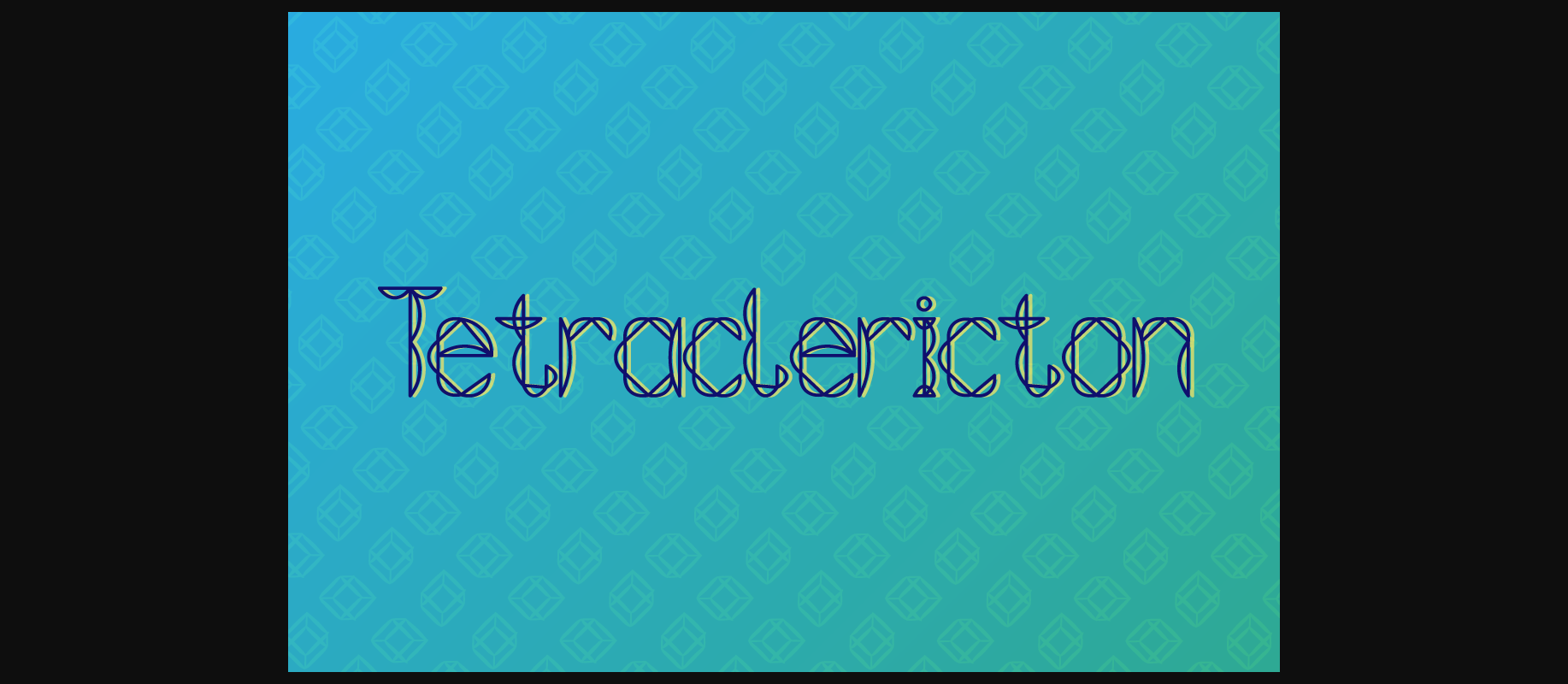
HomeDecorative FontsTetraclericton Font Decorative Fonts Tetraclericton Font FacebookXPinterestWhatsApp 1 of 1 About Tetraclericton Font Tetraclericton is a cool decorative font in a legible style, ideal for projects that need an ornate feel. DOWNLOAD NOW People also explored Meison Font Hand Vintage Font Travelista Font Lobster Font Bennet Font Bestons Font Secret Admirer Font Saint Merry Font The Shady Frog Font 330 0 TagsTetraclericton Font Previous articleRumpelstilnexz FontNext articleDecorissimant Viper 78 Font LEAVE A REPLY Cancel reply Comment: Please enter your comment! Name:* Please enter your name here Email:* You have entered an incorrect email address! Please enter your email address here Website: Save my name, email, and website in this browser for the next time I comment. Personal Use Free Shrag Script Personal Use Free Read more about this font Handayani Personal Use Free Read more about this font Charlie Personal Use Free Read more about this font Happy Camping Personal Use Free Read more about this font BLOG Free Fonts Risk: Why Free Fonts Can Be Dangerous for Designers Free Fonts Risk: Why Free Fonts Can Be Dangerous for Designers Using free fonts is a common practice in web and graphic design. However, the... Fonts That Capture the Spirit of New York City Modern Sans-Serif Fonts That Brands Love in 2025 To increase your work productivity, choose the most readable fonts.